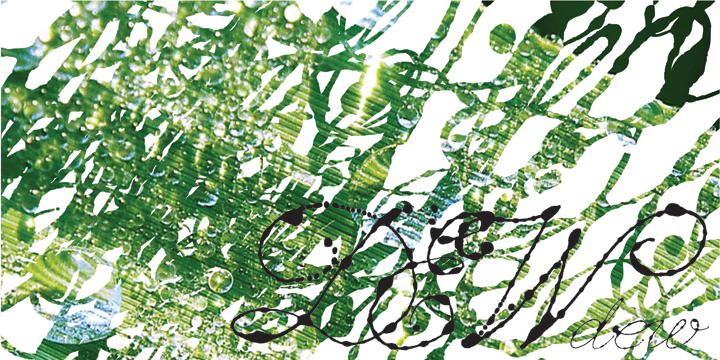
Designed by Ekaterina Pulenko, Dew is a historical and script font published by ParaType.
Dew is a script font with blobs on the stems that according to author’s imagination resemble dew drops on the caules. It gives an impression of fragrance and freshness and thus can be used for informal headings and short advertizing texts for perfumes and cosmetics. The font was developed by Ekaterina Pulenko and released by ParaType in 2009.